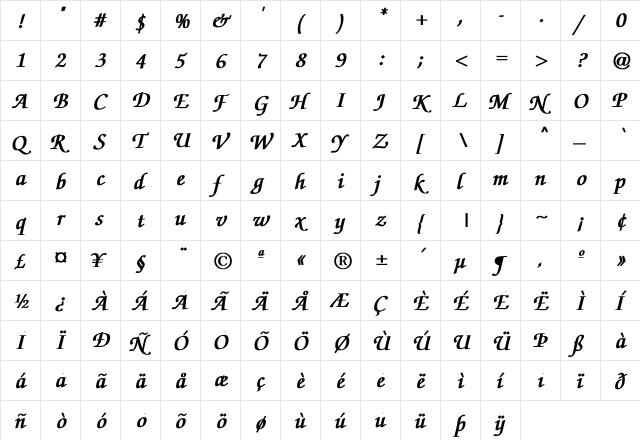
ZapfChancery-MediumItalic bold Bold Font Preview
Design Context for ZapfChancery-MediumItalic bold Typeface
ZapfChancery-MediumItalic bold takes a measured approach to typography — its balanced proportions and neutral character make it a reliable workhorse for both digital and print work. Its italic angle brings a sense of urgency and motion to the letterforms. The heavy weight commands attention and anchors typographic hierarchies.
Pro Tip: Try ZapfChancery-MediumItalic bold for annotation and caption copy alongside an upright companion — the contrast in angle creates a dynamic but ordered typographic system.